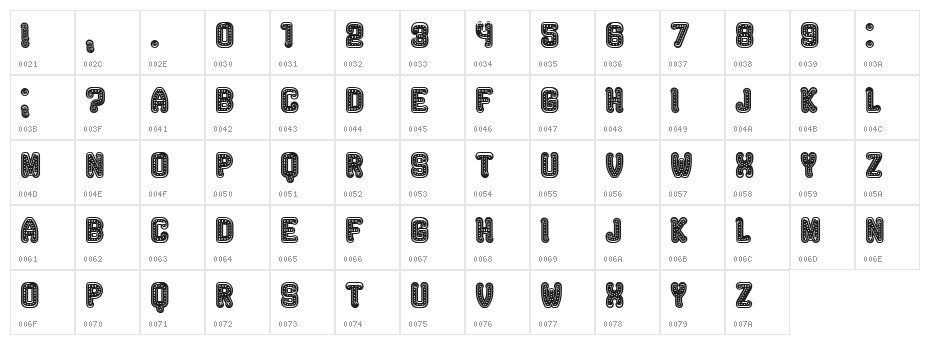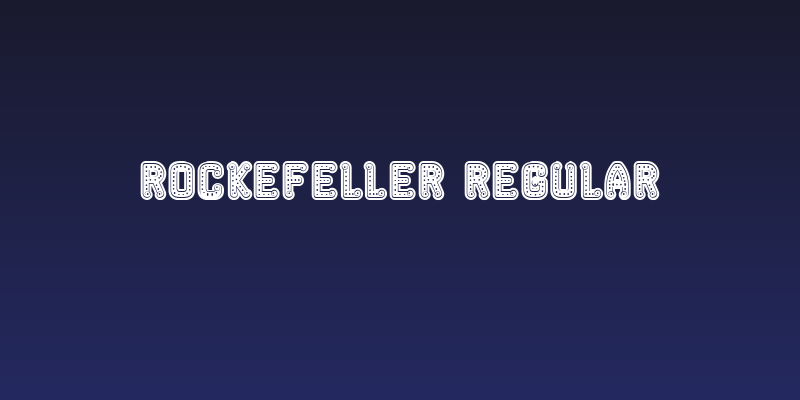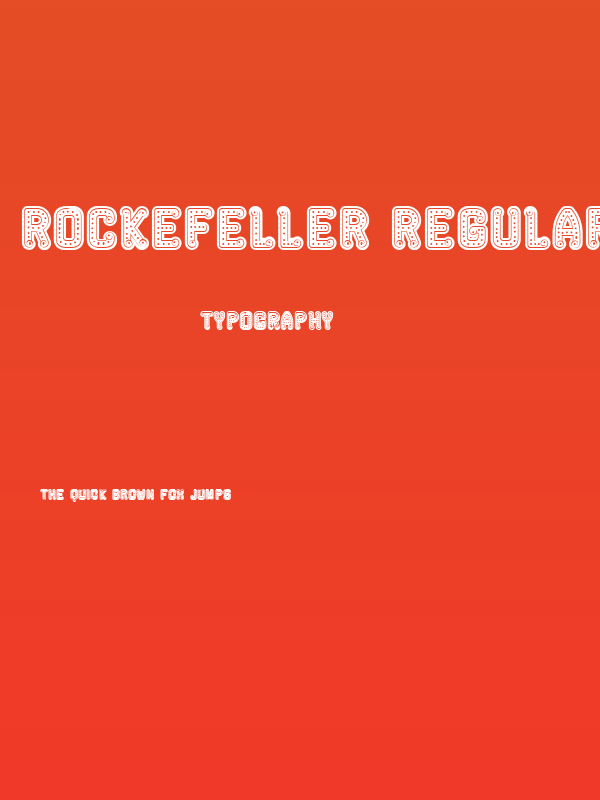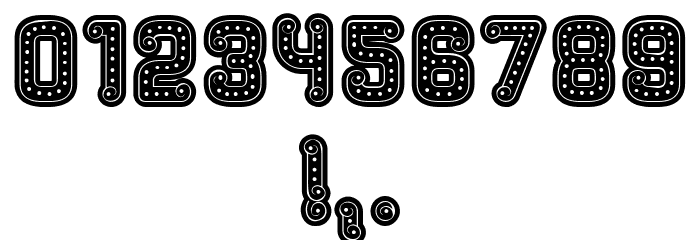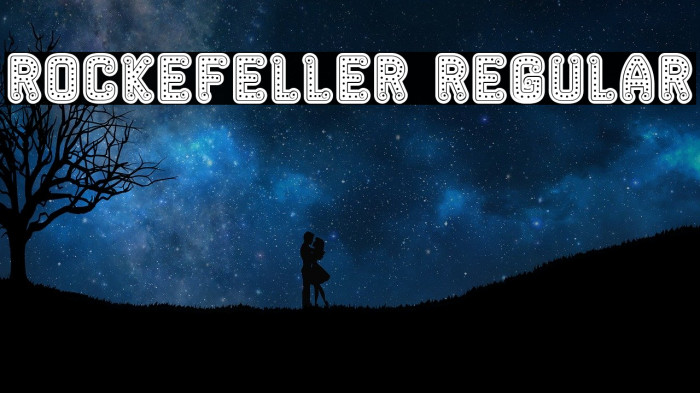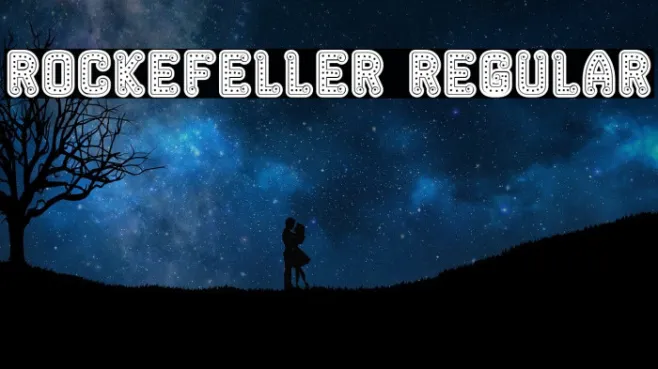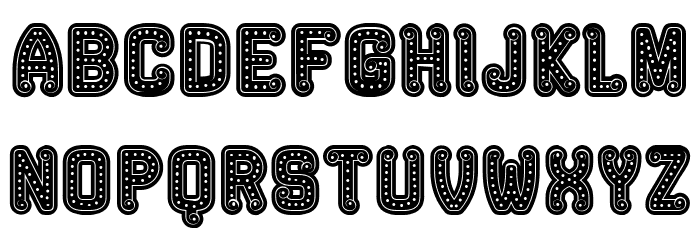
Rockefeller Regular Font
Rockefeller Regular Description
This font features a bold and decorative style with a unique dotted pattern within each character. The uppercase and lowercase letters are designed with a consistent width, giving a uniform appearance. The numbers and special characters maintain the same decorative theme, making the font suitable for eye-catching designs. The overall look is playful yet structured, with a modern twist on classic typography. The dotted detailing adds a layer of complexity and interest, making it ideal for projects that require a standout typeface.
| Proposed Projects | Ideal for posters, signage, branding, and any project that requires a bold, attention-grabbing typeface. |